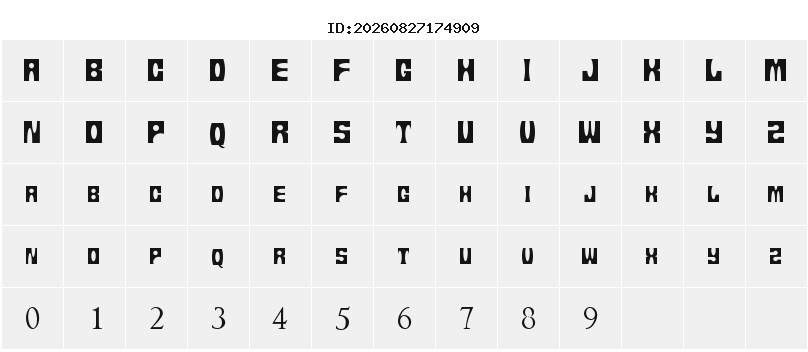
tups13 Preview
• Font Name: tups13
• Full Font Name: tups13
• Version: Version 1.00 June 19, 2013, initial release
About tups13.ttf
tups13.ttf is a modern, elegant sans-serif font designed for ultimate readability and visual harmony. Perfect for branding, headlines, web design, and print materials.